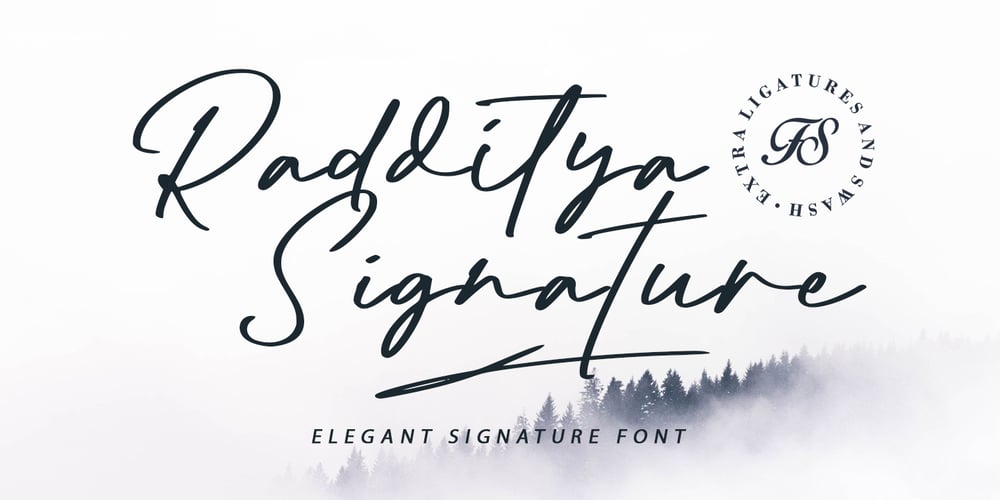
Radditya Signature
Radditya Signature font
Radditya Signature Font Family was designed by Icep Anwar Fadhil and published by Figuree Studio. Radditya Signature contains 1 styles and family package options. Experience elegance and sophistication with Radditya Signature – the must-have signature font for any design project.Crafted with meticulous attention to detail, Radditya Signature features sleek, flowing lines and unique flourishes that bring a touch of class to any design. With unique ligatures and swash characters, you have complete creative control to make your designs truly unique.Whether you’re designing a logo, crafting invitations, or creating social media posts, Radditya Signature adds a modern, elegant touch that will make your designs stand out from the crowd. Plus, with support for multiple languages, you can easily reach a global audience.What You GetRadditya SignatureFeatures Uppercase and Lowercase Number and Punctuation Ligatures and swash Multilingual Support To enable the OpenType Stylistic alternates, you need a program that supports OpenType features such as Adobe Illustrator CS, Adobe Indesign & CorelDraw X6-X7. tutorial hereThere are additional ways to access alternates, using Character Map (Windows), Nexus Font (Windows), Font Book (Mac), or a software program such as PopChar (for Windows and Mac).If you have any questions, don’t hesitate to contact me